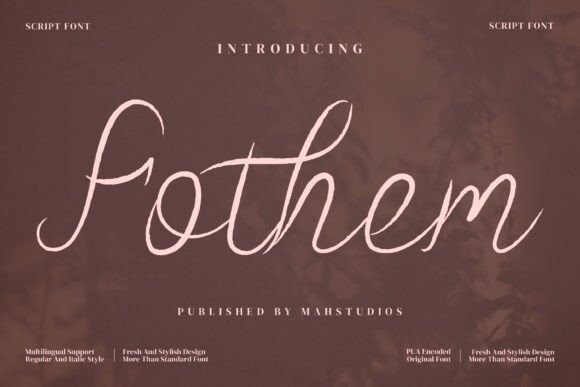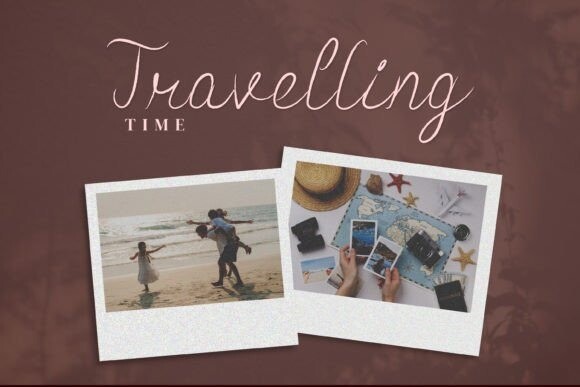
Fothem Font
Fothem is a beautiful and elegant handwritten font that adds a touch of sophistication to any project. With its graceful curves and flowing strokes, this font is perfect for invitations, branding, and editorial design. Its unique style and timeless design create a sense of luxury and refinement. It is also PUA encoded which means you can access all of the glyphs and swashes with ease!